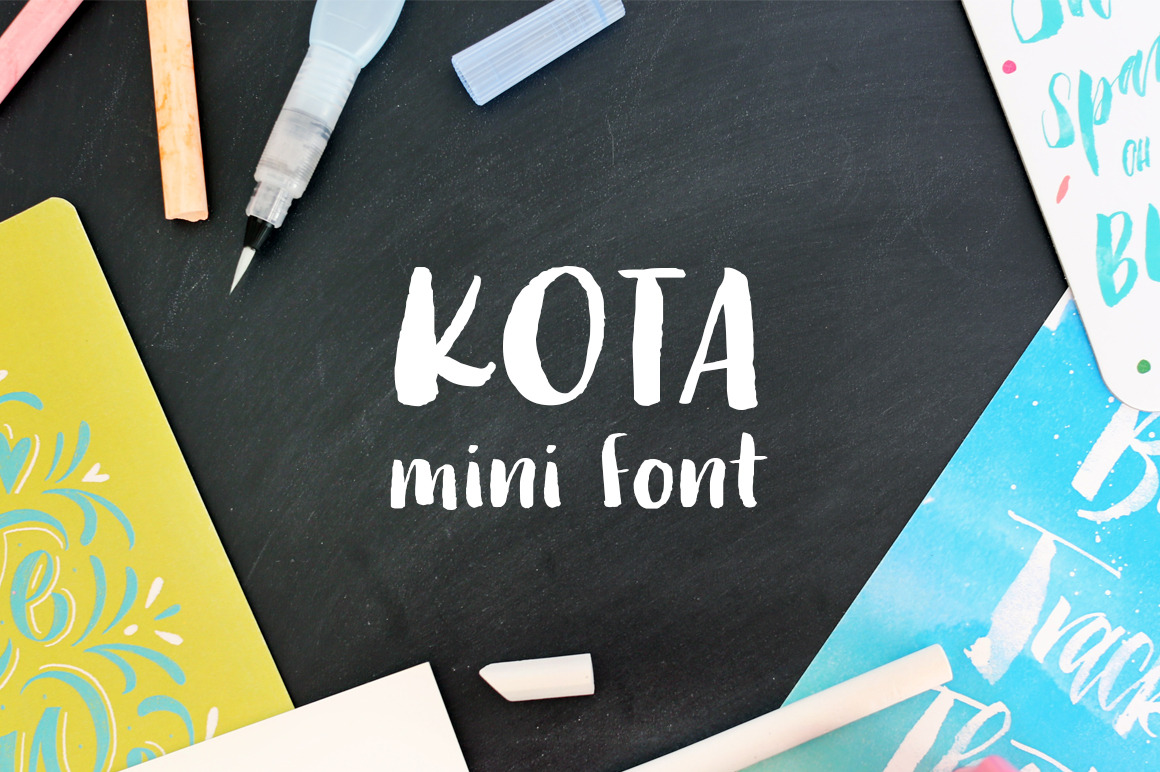
Kota Mini Font
Kota Mini Font is perfect for any project that needs a hand-made feel and can easily be used with photoshop styles to achieve the watercolor look!
Because Kota is a mini font, it includes uppercase, lowercase, numbers, and a limited set of symbols. Feel free to give it a test run below!